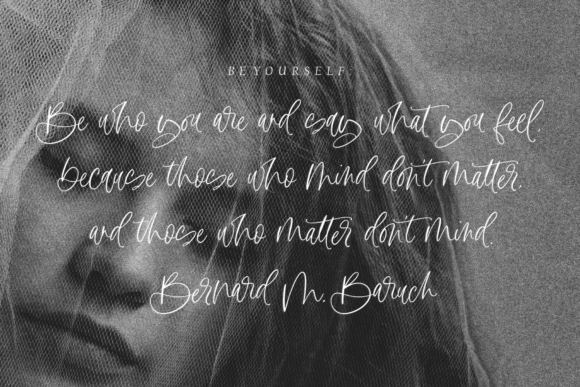
About Diary Writing Font
Diary Writing is an enchanting handwritten font. This versatile script font has a wide spectrum of applications ranging from greeting cards to headlines.Diary Writing is PUA encoded which means you can access all of the glyphs and swashes with ease!